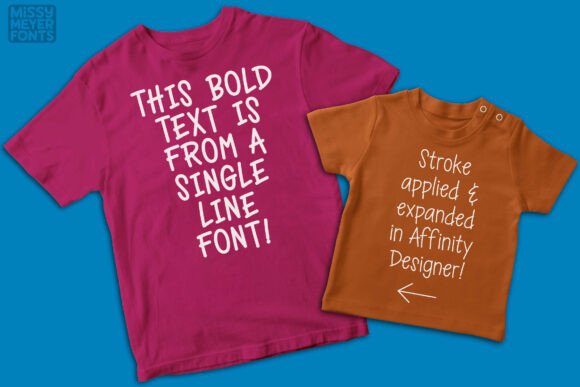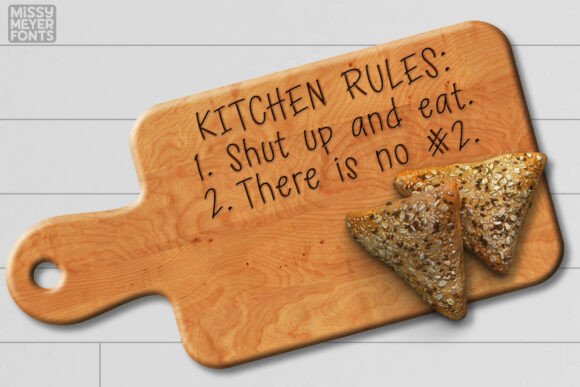
Ankle Biter Line Font
Ankle Biter Line is a playful, single-line font adapted from the original Ankle Biter Print outline style. With its fun, handwritten look and tall, friendly letterforms, it’s perfect for all kinds of creative projects—think greeting cards, personalized gifts, engraved jewelry, cutting boards, and more.
Unlike traditional fonts, Ankle Biter Line is made for tools that draw rather than print. Whether you’re using a sketch pen, foil quill, engraving tool, infusible ink pen, or Glowforge, this font is ready to go. It comes in both single-stroke and double-stroke versions, giving you flexibility across different design programs and machines.
Whether you’re crafting, engraving, or drawing with precision tools, Ankle Biter Line brings a touch of charm and creativity to every design.